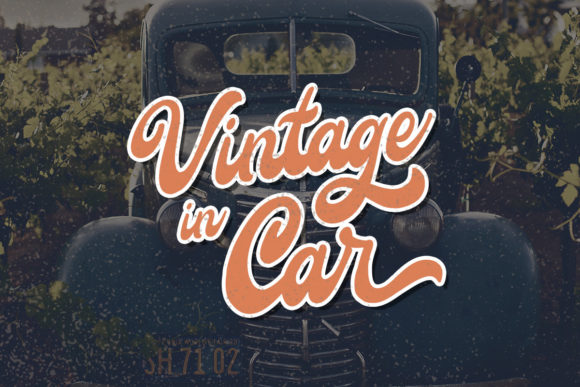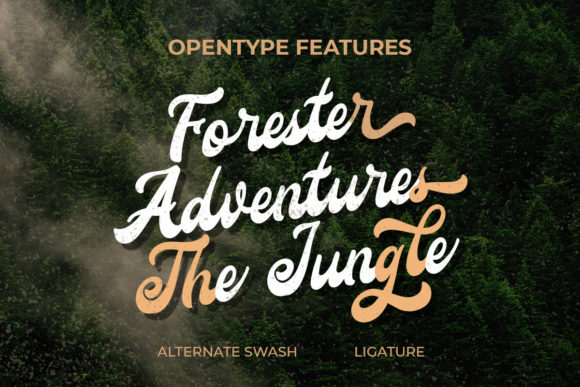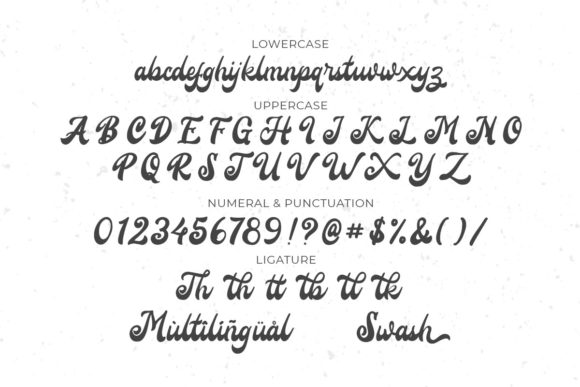
Introduction to Roadsky Font
Have you ever been stuck on a creative project, searching for the perfect font to bring your design to life? I know I have. There’s something magical about finding that one special font that transports your design to a new level of beauty and sophistication. For designers, the search for the ideal font can be a daunting task, but what if I told you that I’ve found a treasure trove of a font that will undoubtedly take your designs to new heights?
Meet the Roadsky Font, a stunning vintage styled and beautiful script font that will immerse your designs into a magical world. With its high quality design and transparent background, this font is the perfect addition to any creative project. And the best part? It’s available for free download, making it an invaluable resource for designers of all levels.
Key Features of Roadsky Font
- High-quality vector graphics, ideal for creative projects and designs
- Unique, hand-drawn design aesthetic, perfect for adding a personal touch to creative projects and designs
Honest Review: Roadsky Font
As a designer, I’m always on the lookout for high-quality fonts to enhance my creative projects. I recently came across the Roadsky Font, and I must say, it’s been a game-changer.
What works well: ✨ The Roadsky Font offers a free download, making it an excellent design resource for anyone looking to add a touch of elegance to their projects. The font’s transparent background allows for seamless integration with any design, and its sleek, modern design makes it perfect for various creative projects.
Some notable features of the Roadsky Font include:
- High-quality design that’s perfect for modern and elegant projects
Limitations: ⚠️ While the Roadsky Font is an excellent addition to any designer’s toolkit, it’s worth noting that it may not be as versatile as some other fonts. Additionally, some users may find the font’s design too minimalist for certain projects.
Overall, I’m thoroughly impressed with the Roadsky Font. Its high-quality design, free download, and transparent background make it an excellent design resource for any creative project. I highly recommend giving it a try.
Tips for Getting the Most Out of Roadsky Font
For a transparent background, use the font on a layer with a transparent background in Adobe Photoshop/Illustrator. To make the most of the Roadsky Font, use it in creative projects that require a high-quality, modern look. Experiment with different font sizes and colors to add visual interest to your design.
The Roadsky Font is commonly used in branding, marketing materials, and digital products. It’s also a great resource for designers working on creative projects, such as logo designs, brochures, and business cards.
Alternatives to Roadsky Font
Futura Font
Futura is a high-quality sans-serif font suitable for creative projects requiring a clean and modern look. It’s available for free download and features a transparent background, making it ideal for digital designs. When to use: Futura is perfect for posters, flyers, and other promotional materials where a bold and eye-catching font is necessary. Compared to Roadsky Font, Futura has a more geometric and futuristic feel, making it a great alternative for projects that require a cutting-edge aesthetic.
Avenir Font
Avenir is a versatile and elegant font that can be used for various design purposes, including logos, headings, and body text. It’s a high-quality design resource that features a transparent background and is available for free download. When to use: Avenir is ideal for creative projects that require a sophisticated and refined look. Compared to Roadsky Font, Avenir has a more classic and timeless feel, making it a great alternative for projects that need a touch of elegance.